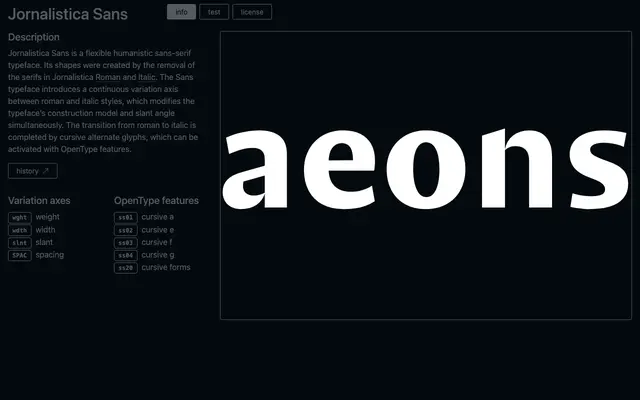
Jornalistica Sans
A variable humanist sans derived from Jornalistica Roman, with a continuous axis that blends roman and italic construction simultaneously.
Built by removing the serifs from Jornalistica Roman and Italic, this variable typeface exposes four axes: weight, width, slant and spacing. The slant axis is more than a simple angle shift — it transitions the construction model from roman to italic, with cursive alternate glyphs for a, e, f and g activating via OpenType features to complete the shift. The result is a typeface suited to editorial and news contexts where typographic flexibility across weights and styles is essential.
The page explicitly describes it as a humanistic sans-serif, derived by removing serifs from Jornalistica Roman and Italic, retaining the humanist proportions and construction of the parent serif.